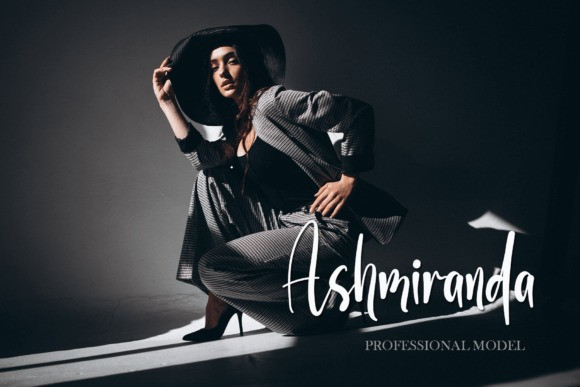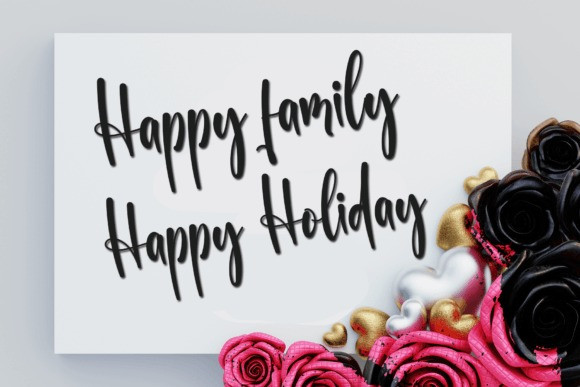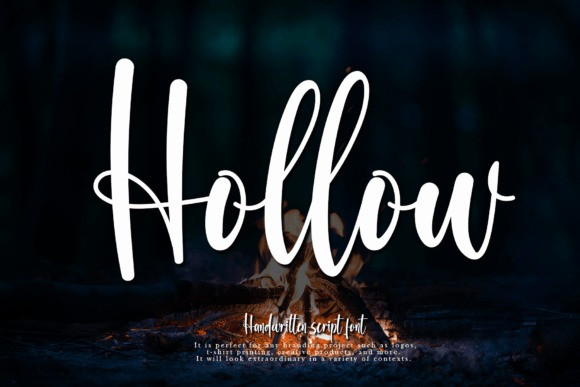
Hollow Script Font
Hollow Script Font is a simple and quirky-looking handwritten font. It has a classy, elegant, and modern look that you can use for logos, branding, invitations, stationery, wedding designs, social media posts, and much more!